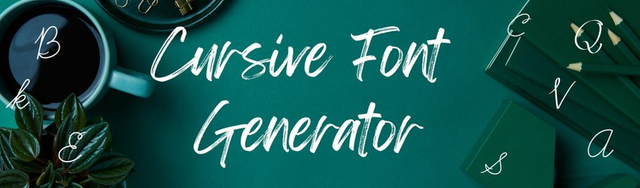
Cursive Font Generator
Are you looking to write your words in Cursive? You can use a free Cursive font generator tool that helps you to write your website content, your notes or any other personal or professional words in Cursive. Fancy Font generatorbrings you the cursive writing a to z. Cursive writing is also taught in schools to change your handwriting & help you to write beautifully. Nowadays, it become a trend to use fancy fonts for digital prints or social media bio sections. From here, type the word you want to re-write in cursive, writing a to z capital and small letters.
There are many fonts. Some allow you to write in capital letters, and some allow you to write in small letters. But if you use any cursive fonts, you need to install them on your desktop or PC, and they will work on that computer or PC or mobile only. You can write your name abbreviation in Cursive. Generally, people are searching for single letters to convert into cursive letters. They are looking for Cursive F, Cursive R, N in Cursive, V in Cursive and many more alphabets.
Our website is where you can get attractive and unique cursive fonts that will work on any computer. With our Cursive font generator Tools, you will get around 20+ fonts that you can just copy from our site. Firstly, we will learn about what cursive writing is, and below, we will explain to you that what is the best way to generate cursive writing with one click.
If you are trying to install many fonts on your computer, you can just copy and paste with our Cursive font generator tool to generate many cursive fonts. And we don’t allow you to install any kind of software or application on your mobile or PC to use them. You can open our website and put your text on it. When you click on the Cursive font generator tool, you will see lots of cursive fonts are there that you can copy and paste.
What Is Cursive Writing?
Cursive writing is a style where you can type all the words without lifting your pencil. Generally, we learn that kind of writing when we are children. You will see if you have a child they cursive writing notebook to learn. If you are an adult and want to install cursive writing to create notes on your desktop, you can download that font onto your laptop.
But if you are writing into an online notepad, these fonts won’t work. In that case, you can use a cursive font generator tool, which helps you to write your content in cursively. These fonts will work on any computer, or pc, or mobile.
Why Do We Need Cursive Writing?
Do you still write on paper with a pen? You can just write those cursive words online, too. If you want to write some notes on your computer with the help of cursive writing, you can just download some cursive fonts. We will let you know about the types of cursive fonts. Also, you can use our cursive font generator tools that don’t allow you to install any kind of software or application to write your words in Cursive.
Where to Use Cursive Fonts?
In the digital world, there are many ways to use them. Generally, we use cursive fonts to design any banner, images, or any other design tools to make it attractive. Mostly, we use them in digital cards or wedding cards. So, let’s talk about the cursive fonts where we can use them.
1. Wedding Invitation: Are you still single and getting married? Then you can use cursive fonts as there are many fonts available on the web, which you can ask your designer. You can also use our Cursive font generator tool to create cursive fonts.
2. Greeting Cards: Are you in a relationship and want to send digital greeting cards to your lover? Then you don’t need to go elsewhere. You can download the Canva Mod APK on your mobile and create greeting cards over there. You don’t need to have professional knowledge of designing as there are many designs available in which you can edit text or change color. So firstly, generate cursive fonts with our Cursive font generator tool and put that into edit text. And you create stylish greeting cards.
3. Holiday Messages: If you want to send holiday messages to anyone, you can use stylish cursive fonts to make them unique and stylish.
Types of Cursive Fonts:
There are many cursive fonts available to download on your computer, and these are free to use for personal use only. But if you talk about professional, in that case, you need to pay for these fonts. Also, these fonts will work on your desktop only. But they will work when you use them in any image or cards, not on the website. Here is the list of cursive fonts which you can use.
1. Creattion Demo: That font is mostly available on every computer. If you don’t have that font on your computer, you can use them to download that font. Those fonts are available on most sites like Dafonts or 1001fonts to download the Creattion Demo fonts.
2. Precious: You won’t find fonts built into your computer. You still need to download them to use or create images with the help of Photoshop. You can download a precious font, and after it is installed on your computer, use it while creating any images or cards.
3. Allura: Allura font is free to use for both commercial and personal. So, if you are creating any professional images for your business, you can use them for free. You won’t get any copyright issues when you use it.
Any Alternative Tool Like Cursive Font Generator:
There are many alternatives to create Cursive fonts, but they won’t work anywhere. If you are going to use it on your website, you need to have CSS or need to use CSS code to use them. Also, you need to upload a font file to your server, which is too panicky for you. But these fonts will work everywhere, like if you are creating any image, using them on the website, using them in messaging to anyone or many other ways. Also, they are free to use them without any external charges, no matter if you are using them professionally or personally. So, there is no alternative for these tools to generate Cursive fonts.
Cursive Writing A to Z
To regenerate text, please type or paste the word or characters in the box above & the Cursive font generator will provide you with all the text in cursive font. You can also write a single character, such as, if you want to write s in cursive or r in cursive, type it & you will get the cursive text in exchange. The best part of cool fonts generated is, supported in the top applications & devices. But we cannot be sure about the applications which are not popular in the market. You can take advantage of cursive small letters for your Instagram bio or Best Facebook VIP Bio.
All the Bio or digital prints are generated through a computer & they will change the font family of the written text & you have seen the results. The fonts changed the entire beauty of any poster or banner. That is why the need for a font family arises. You can write the first character of your word in 100+ different ways. If you want to write cursive f, it will be like 𝓯. You can see the difference & just like this, we can create profile pictures as well for our social media accounts. We have made it very simple and convenient to use for people who are not familiar with the Internet. Just copy & paste it to your perfect place.